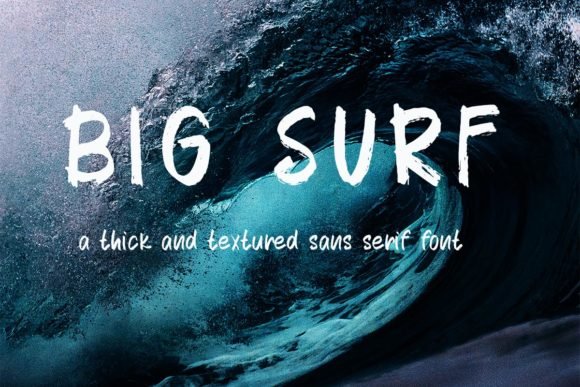
The Perfect Wave of Creativity: Big Surf Font
There’s nothing quite like the thrill of staring at a blank page, waiting for inspiration to strike. And then, it happens – a spark of creativity ignites, and your ideas start flowing. For designers, this moment is what makes all the hard work worth it. But what if you could take that spark and turn it into something truly unique? Enter the Big Surf Font, a one-of-a-kind handwritten font that’s sure to make your projects stand out from the crowd.
Created with the help of a lovely brush pen, Big Surf Font is the perfect tool for designers who want to add a touch of personality to their work. Whether you’re working on a branding project, a social media campaign, or a website design, this font is sure to bring a fresh and exciting feel to your creations. Its versatility and unique charm make it a valuable addition to any designer’s toolkit.
Key Features of Big Surf Font
- Font Family: Big Surf Font is a unique, hand-drawn font family that offers a wide range of styles and weights.
- Unique Characteristics: Big Surf Font features a distinctive, hand-drawn style with irregular lines, giving it a unique and creative feel.
Big Surf Font Review
Big Surf Font has a certain charm to it, with its fun and playful vibe. I think the creator did a great job of capturing the feeling of a beachy, laid-back atmosphere ✨. The font is perfect for creating a summer-inspired brand or website.
- Customizable: Big Surf Font offers various styles and sizes, which can be easily customized to fit your design needs.
- Unique look: The font’s irregular shapes and letterforms give it a one-of-a-kind appearance that can help your design stand out.
However, there are some limitations to consider ⚠️. The font may not be suitable for formal or professional designs, as its playful nature can come across as unprofessional. Additionally, the font’s readability can be affected by its irregular shapes, which may cause difficulties in certain contexts.
Overall, I think Big Surf Font is a great choice for designers who want to add a fun and carefree touch to their projects. While it may not be perfect for every design scenario, its unique look and customizable options make it a great addition to any font collection.
Big Surf Font is ideal for use in beach-themed designs, surf-inspired branding, and outdoor advertisements. To get the most out of it:
- Use it in combination with other beach-themed fonts for a cohesive look.
- Adjust the font size and style to create a sense of movement and energy.
- Experiment with different colors to match your design’s tone and style.